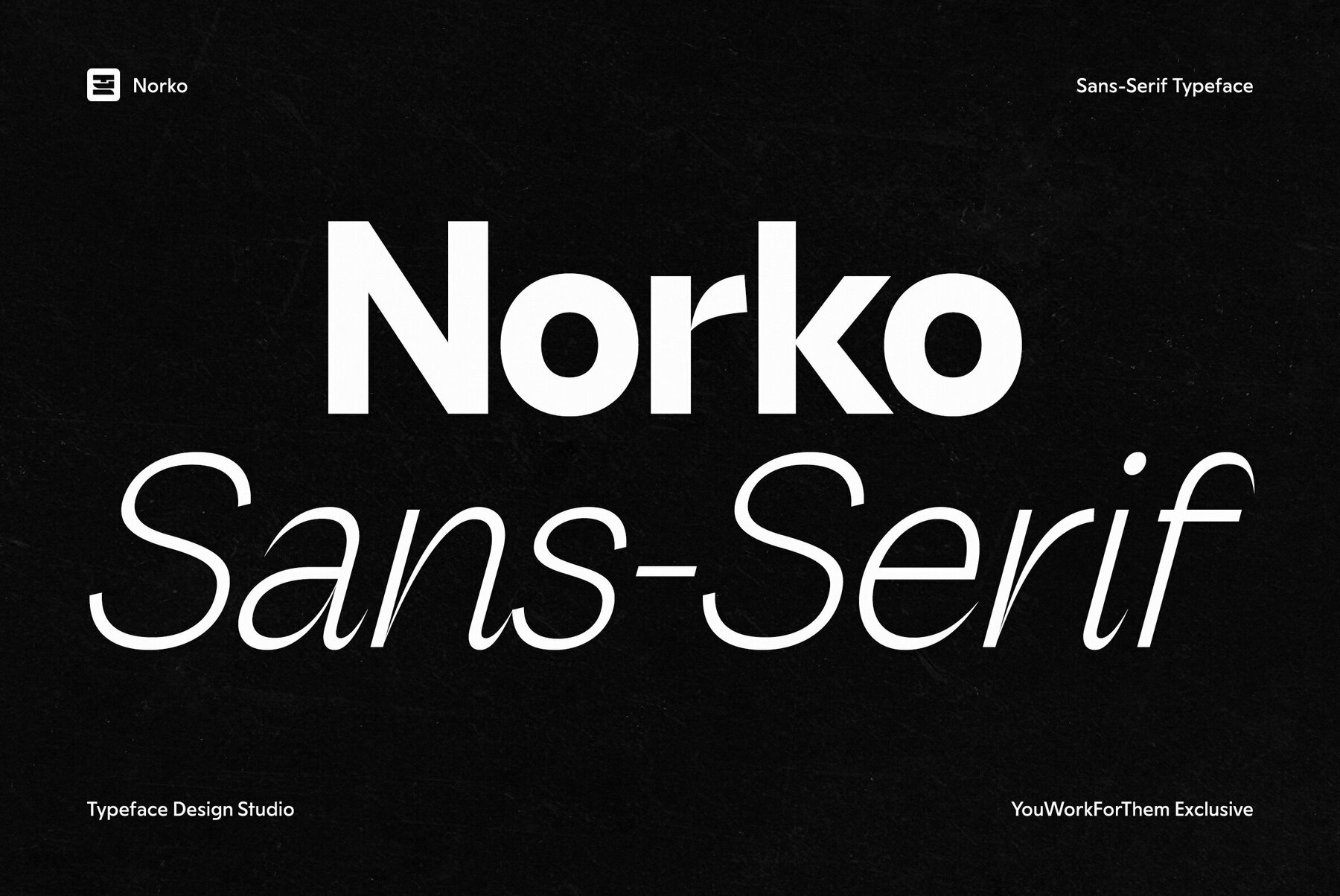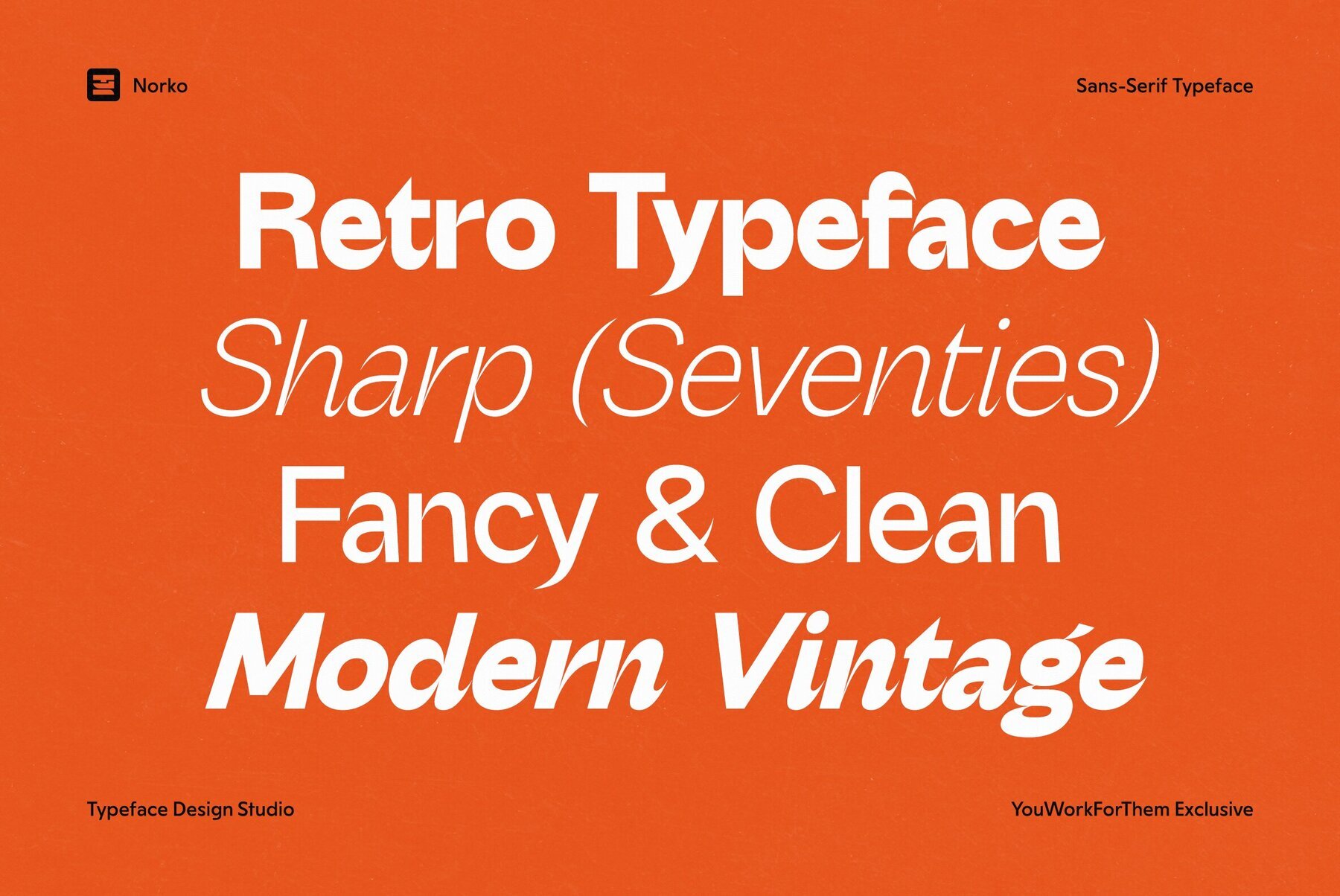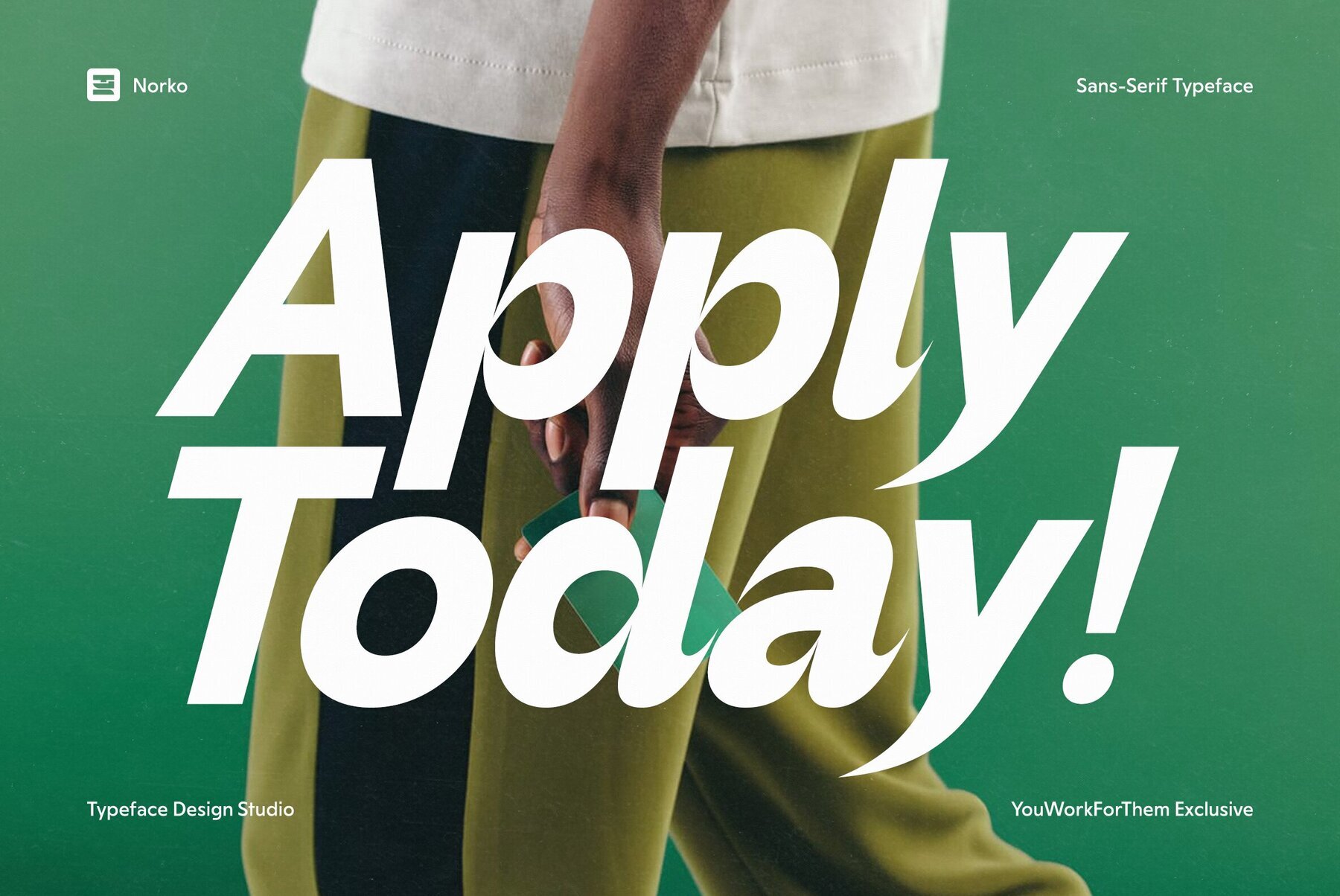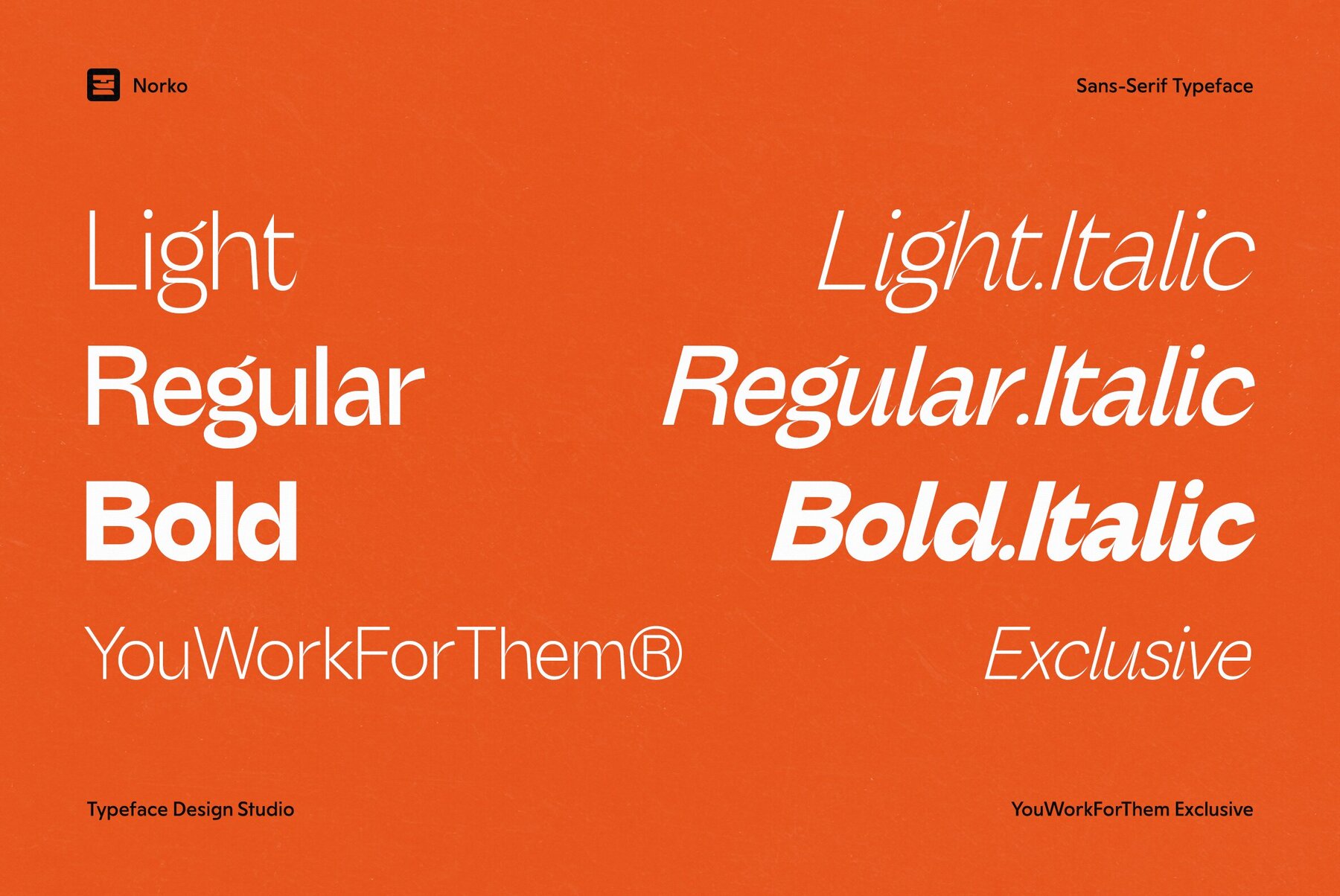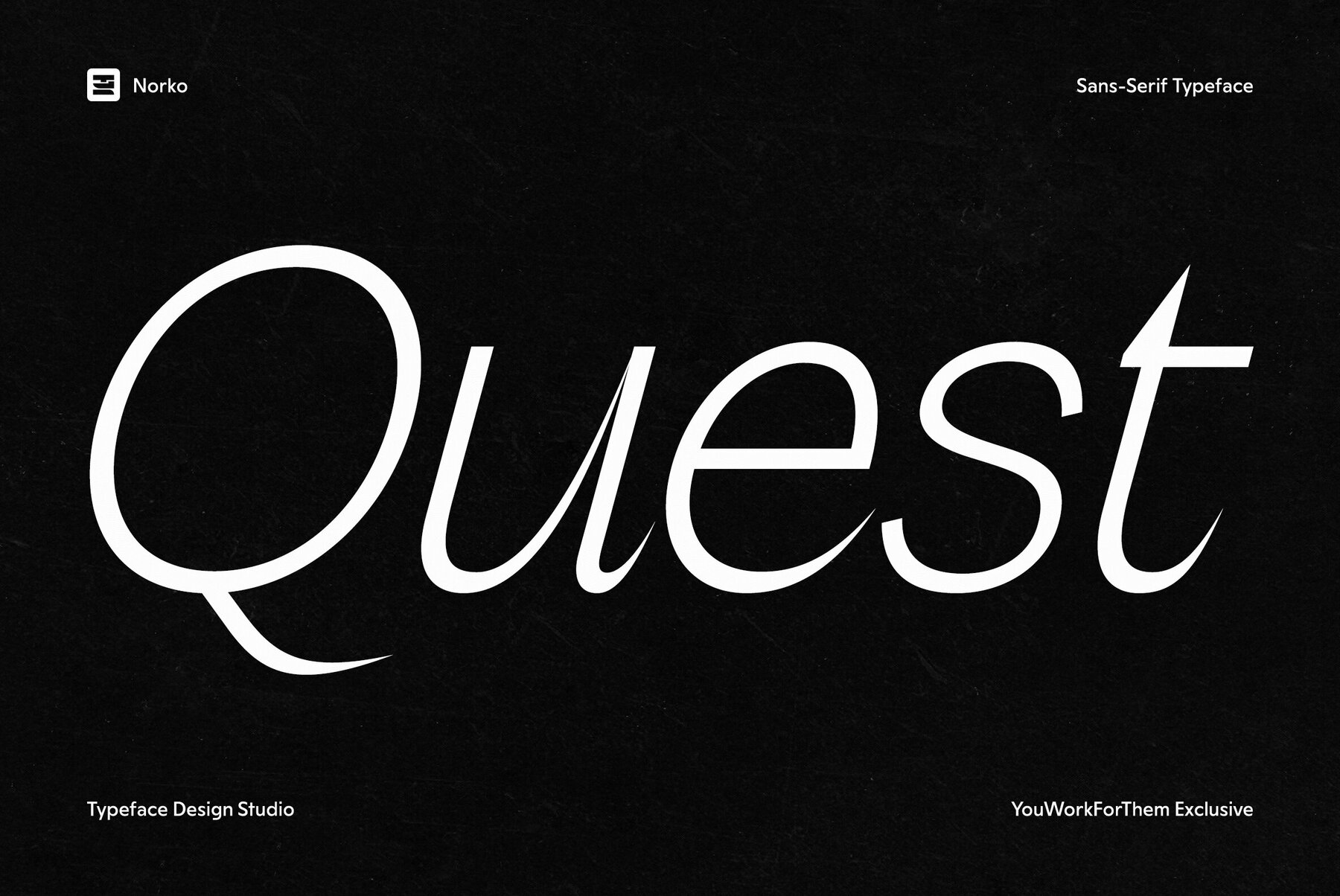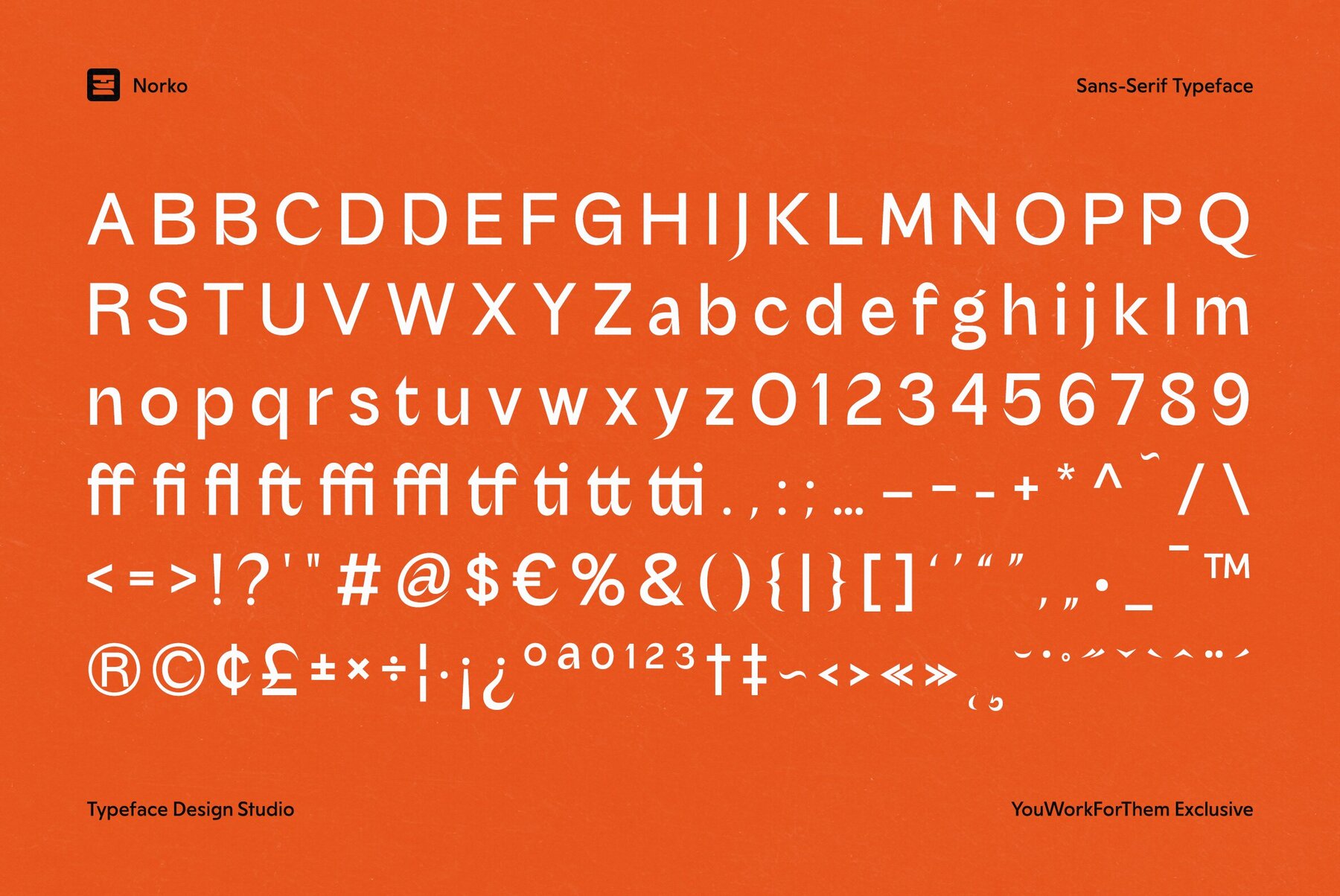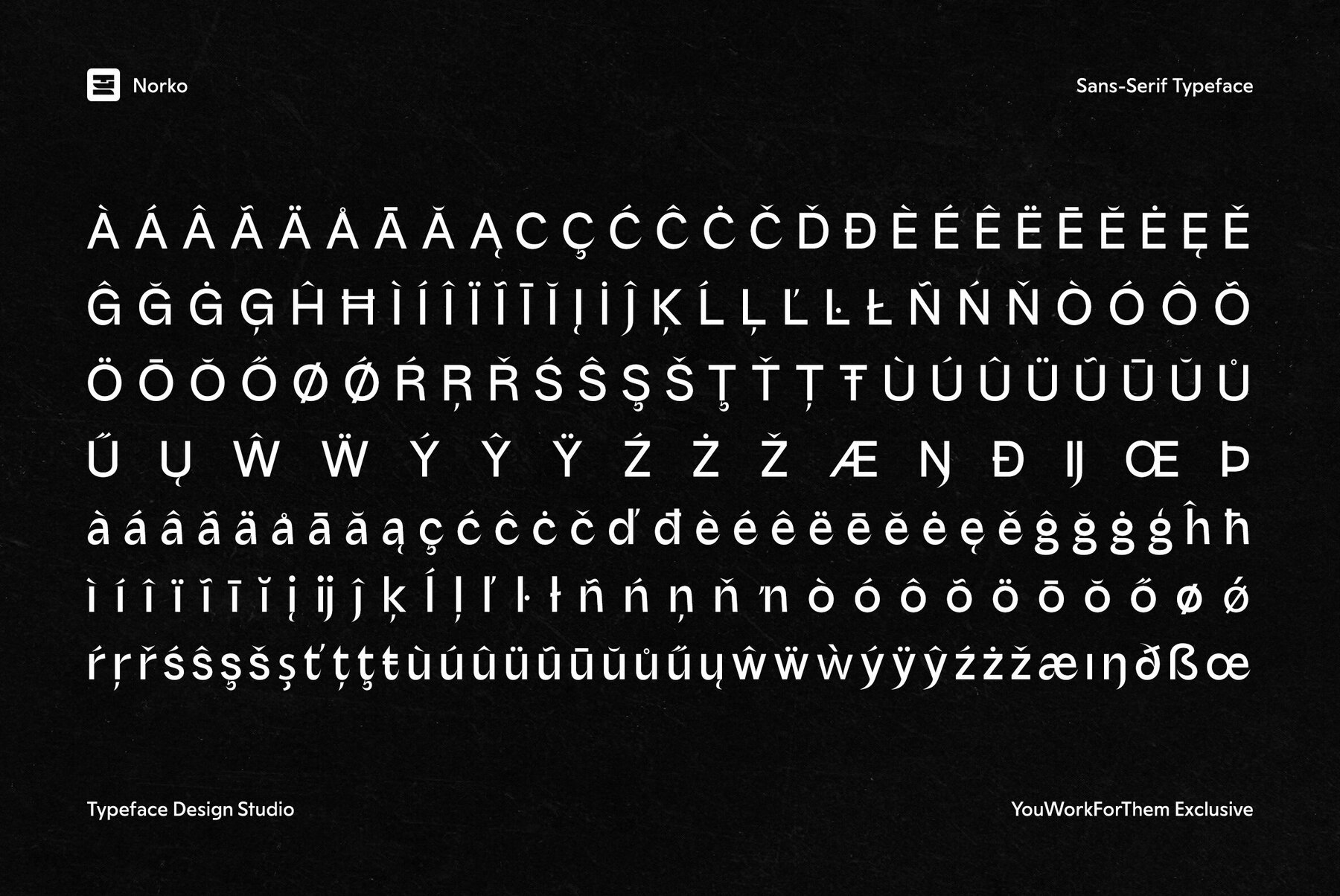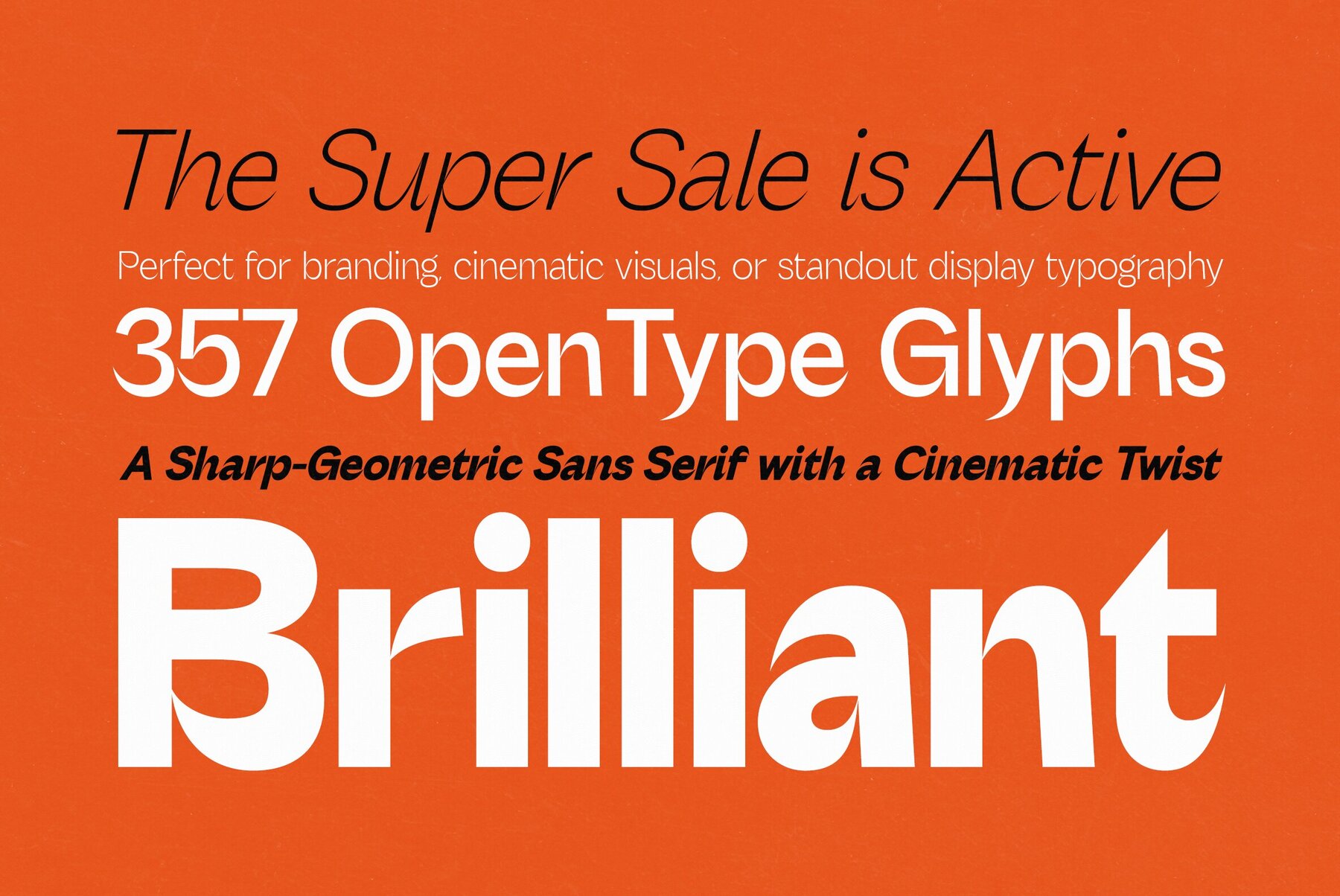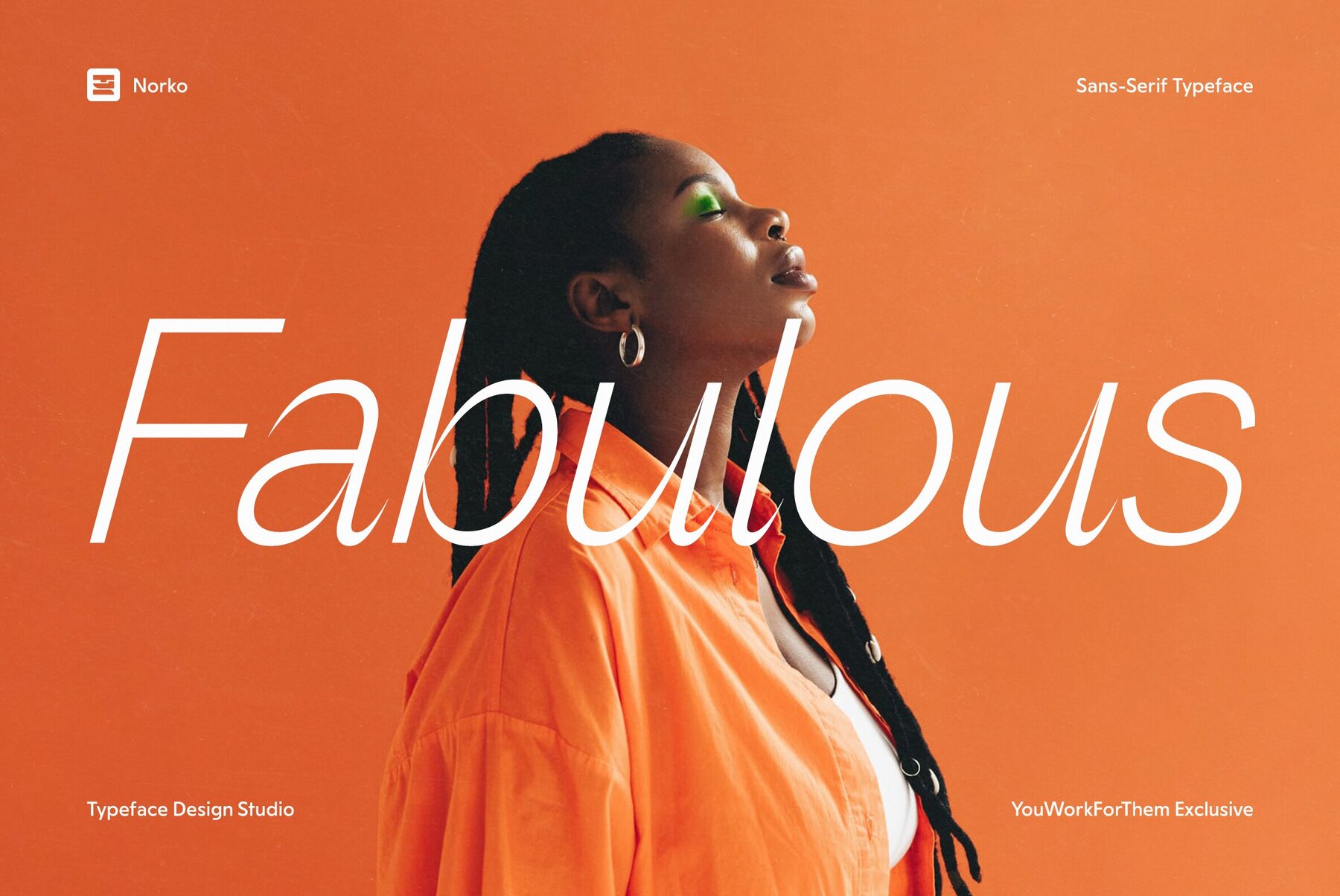
Norko Font
Norko, a YouWorkForThem Exclusive, is a geometric sans serif with a distinctive twist. It introduces subtle flared terminals that add personality to its sharp, structured form. This unique detail makes it ideal for bold applications like movie titles, social media graphics, and editorial headlines where a modern voice with character is needed. Designed in two styles, upright and italic, and available in three weights—light, regular, and bold—Norko adapts seamlessly to both expressive and minimal layouts. It carries a hint of retro influence from the 1970s but stays grounded in a clean, contemporary aesthetic that resonates with today’s design culture. Perfect for branding, cinematic visuals, or standout display typography, Norko offers clarity with just the right amount of attitude. It speaks in a confident tone without losing precision, making it an excellent choice for creatives looking for something distinct yet versatile. 357 glyphs Language support includes Basic Latin, Western European, Euro, Catalan, Baltic, Turkish, Central European, Romanian, Pan African Latin, Dutch, Afrikaans OpenType features include Stylistic Alternates, Discretionary Ligatures, Standard Ligatures, Superscript, Ordinals, Localized Forms, and Access All Alternates Norko is a font with presence. It stands out in titling work, adds structure to branding, and brings personality to every letterform. A sharp choice for designers who need a sans serif that pushes beyond the expected.Norko: A Sharp-Geometric Sans Serif with a Cinematic Twist